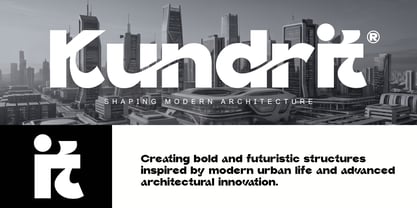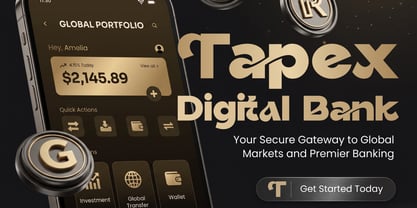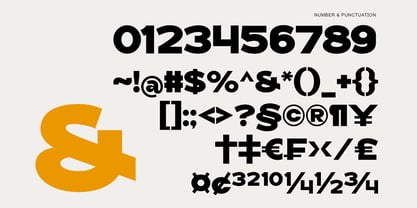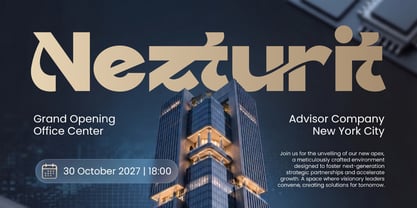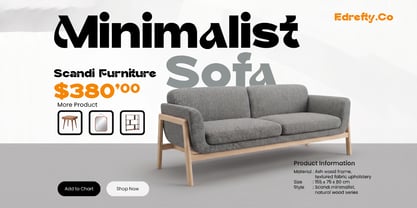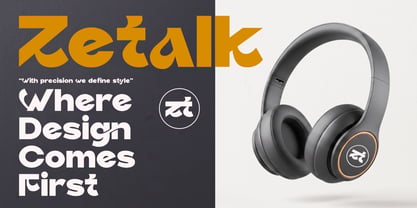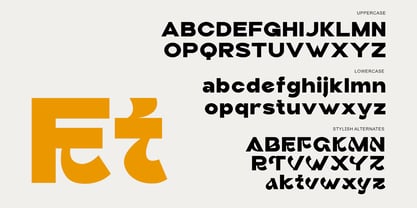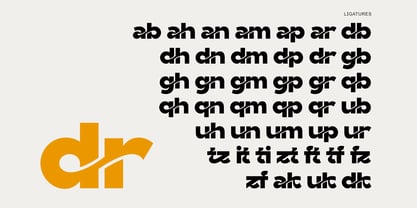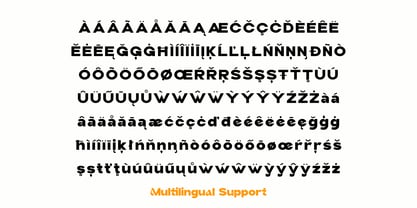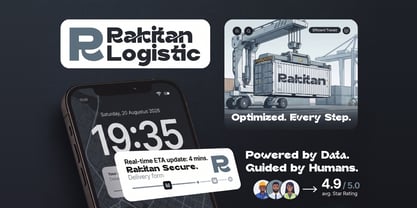
Garitz
by Sealoung
The Garitz Font Family was designed by Saiful Anwar and published by Sealoung. Garitz contains 1 styles. More about this family
Garitz – Dynamic Typeface Flow Garitz is a bold and modern typeface designed with a unique flowing ligature style that creates a seamless visual connection between characters. With its smooth curves and dynamic structure, Garitz delivers a strong yet elegant personality perfect for brands that want to stand out with a contemporary edge. This typeface blends minimalism with artistic motion, making it highly versatile for a wide range of creative projects. Whether you're working on branding, logos, fashion labels, or editorial layouts, Garitz brings a distinctive and memorable look. Key Features: Unique flowing ligatures Modern and dynamic letterforms Strong visual impact for branding Clean yet artistic style Suitable for logos, headlines, posters, and fashion design Garitz is crafted to help designers and creators elevate their work with a stylish and fluid typographic expression.